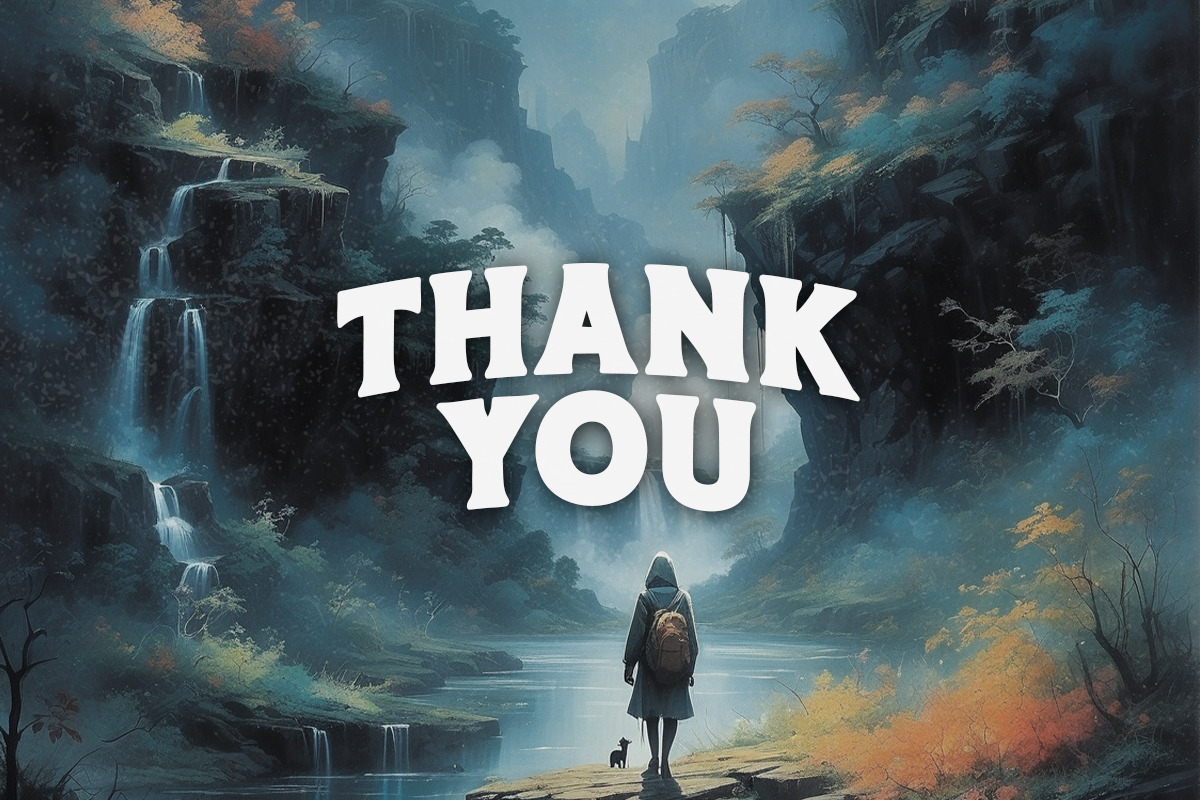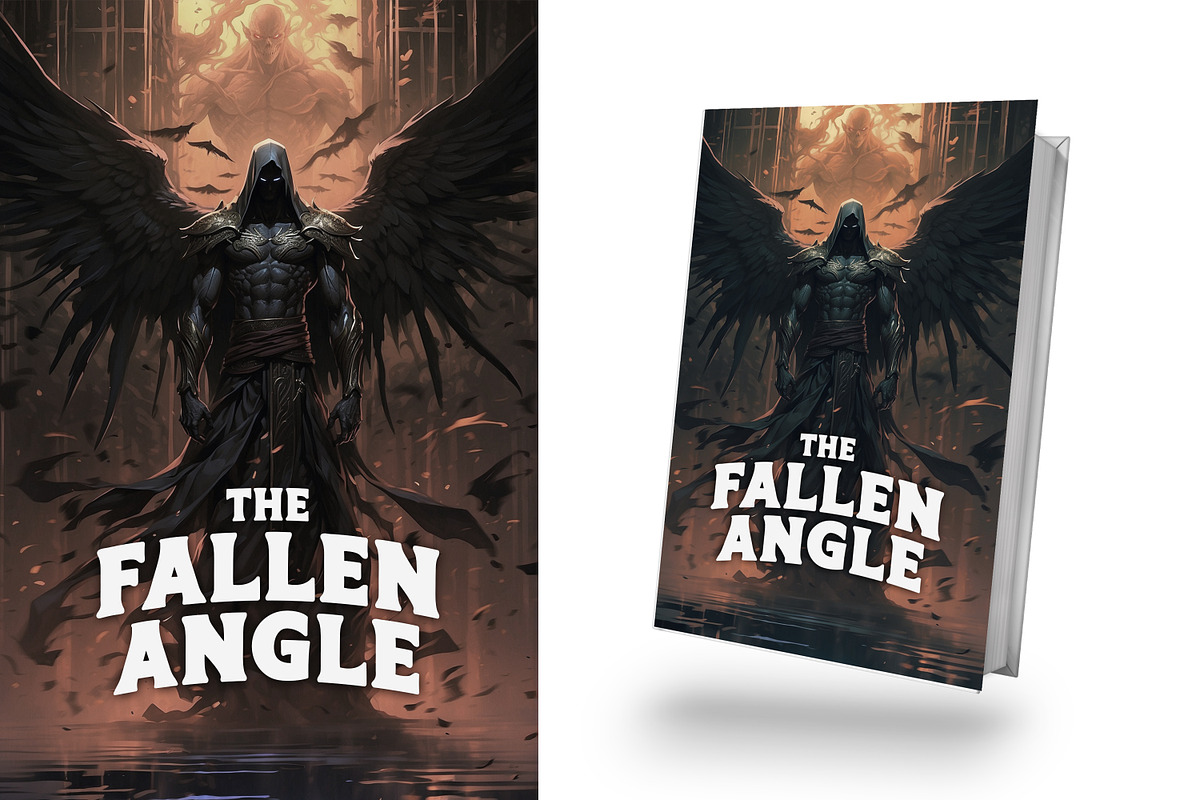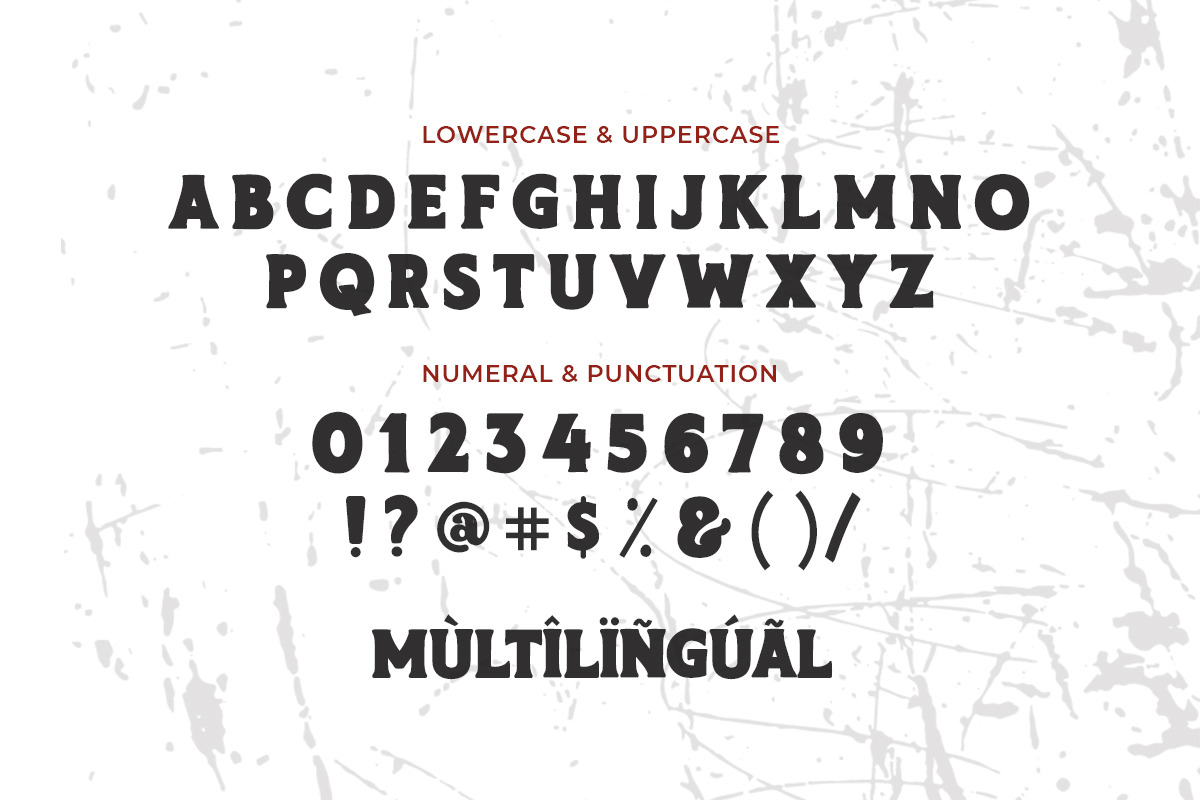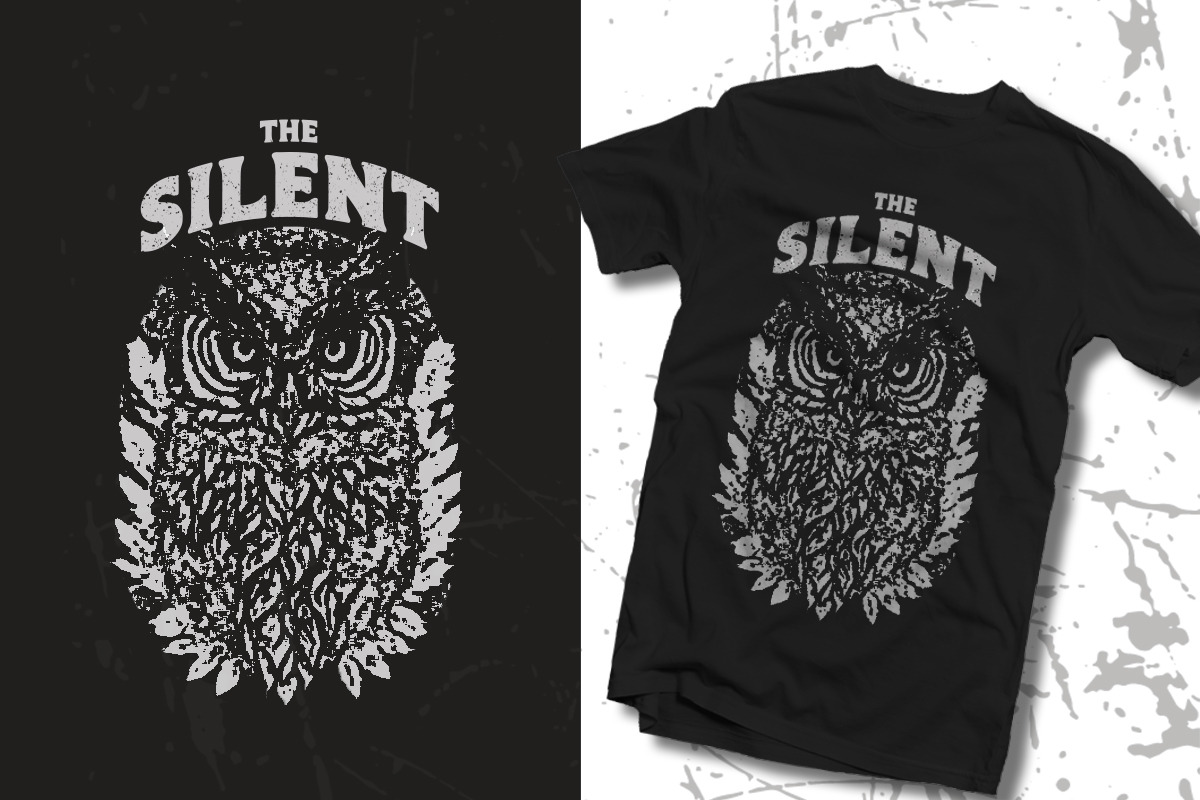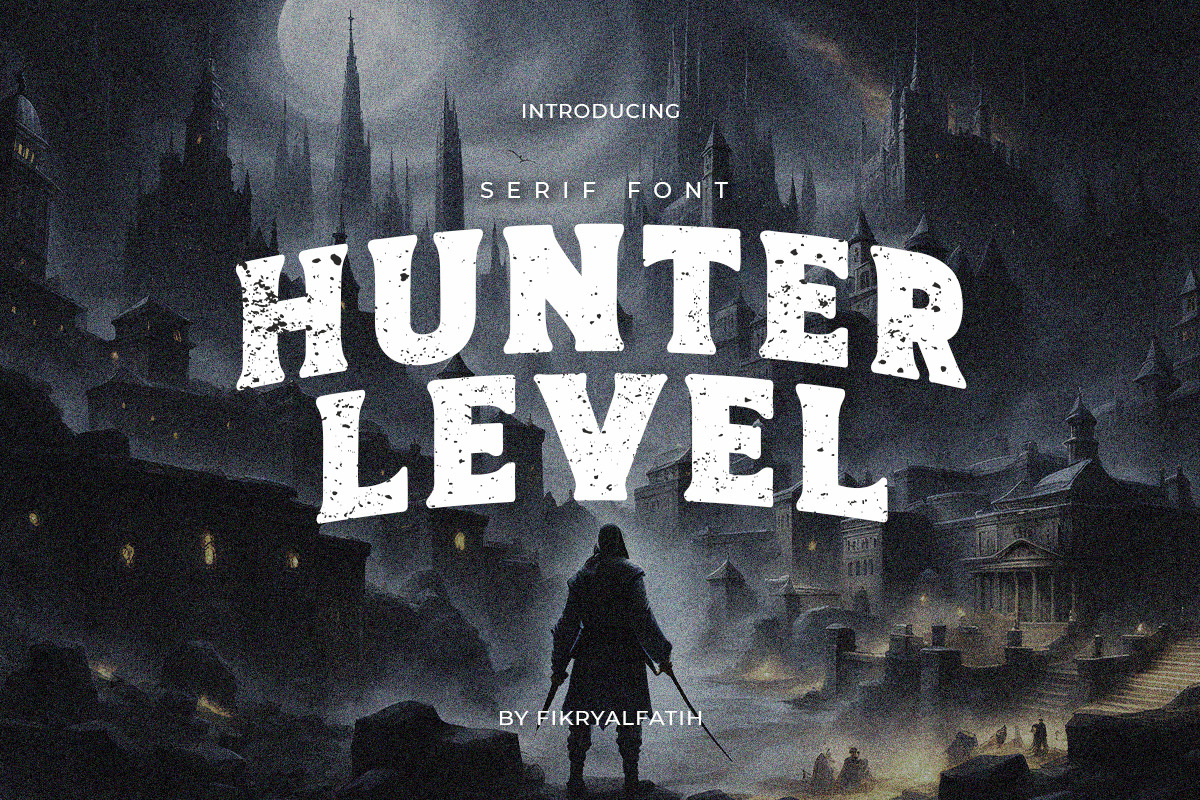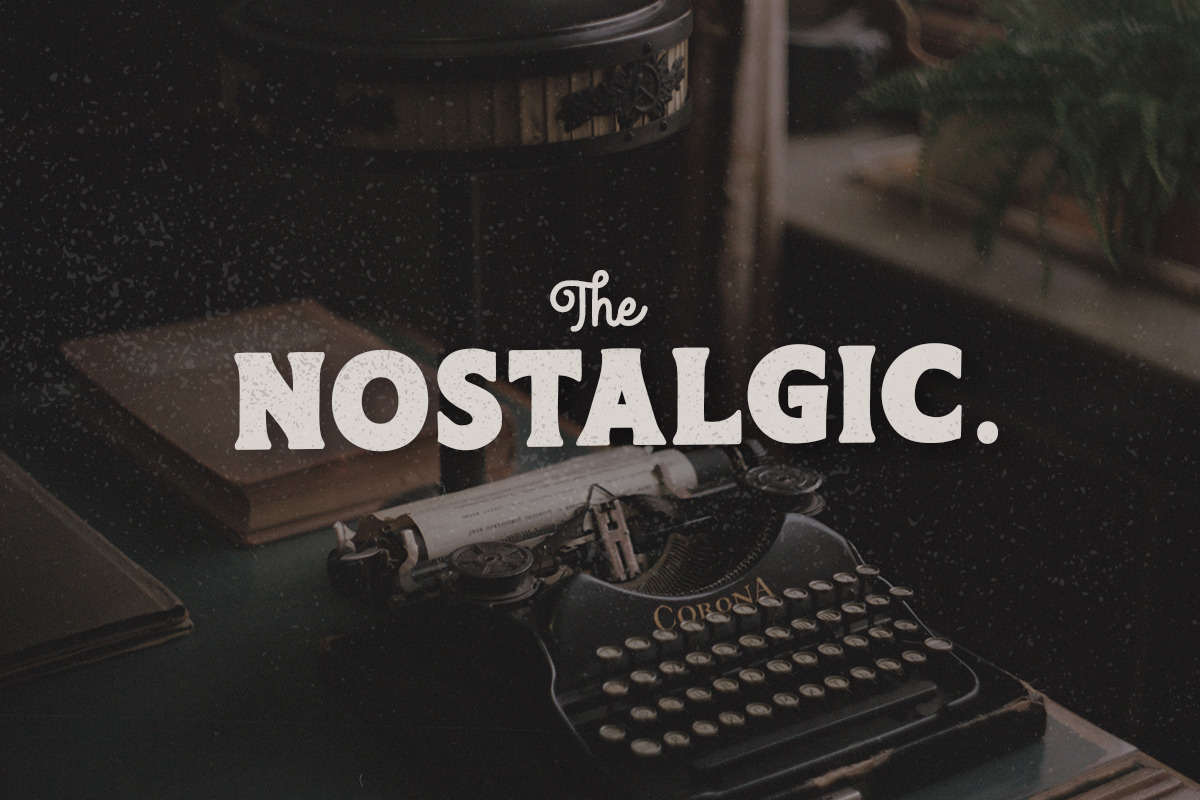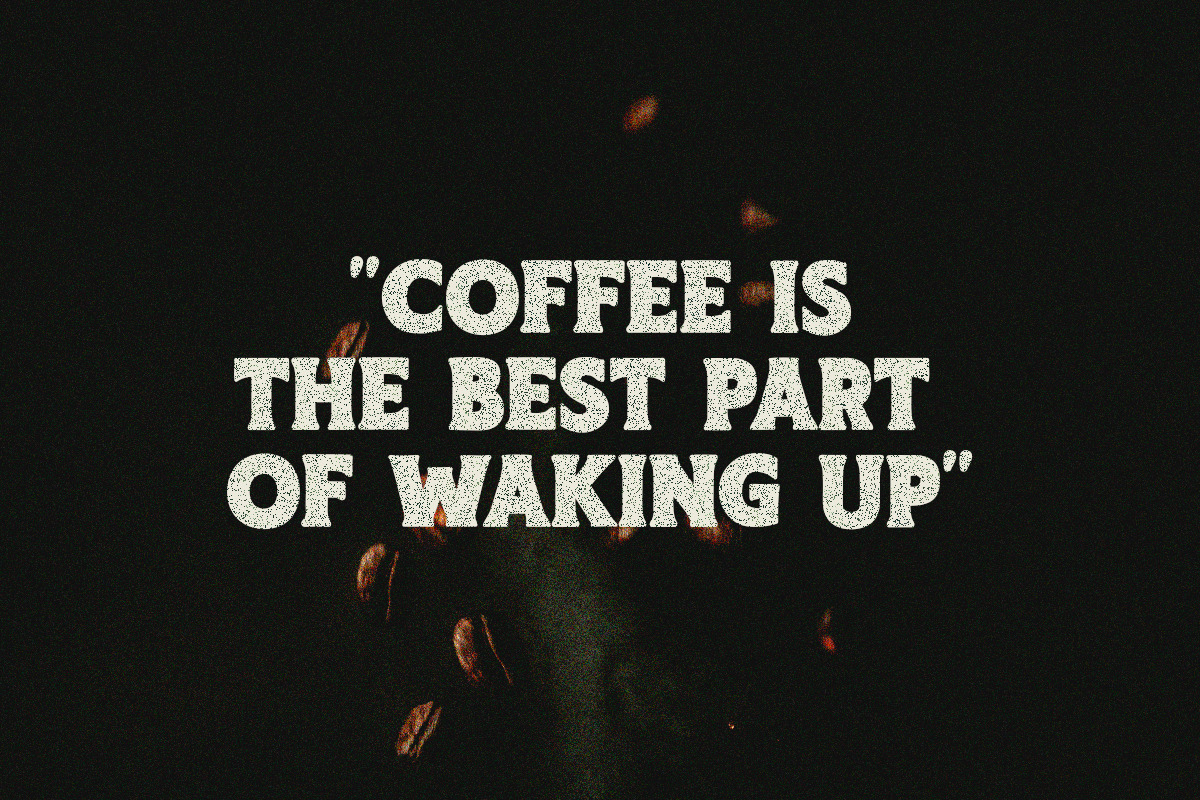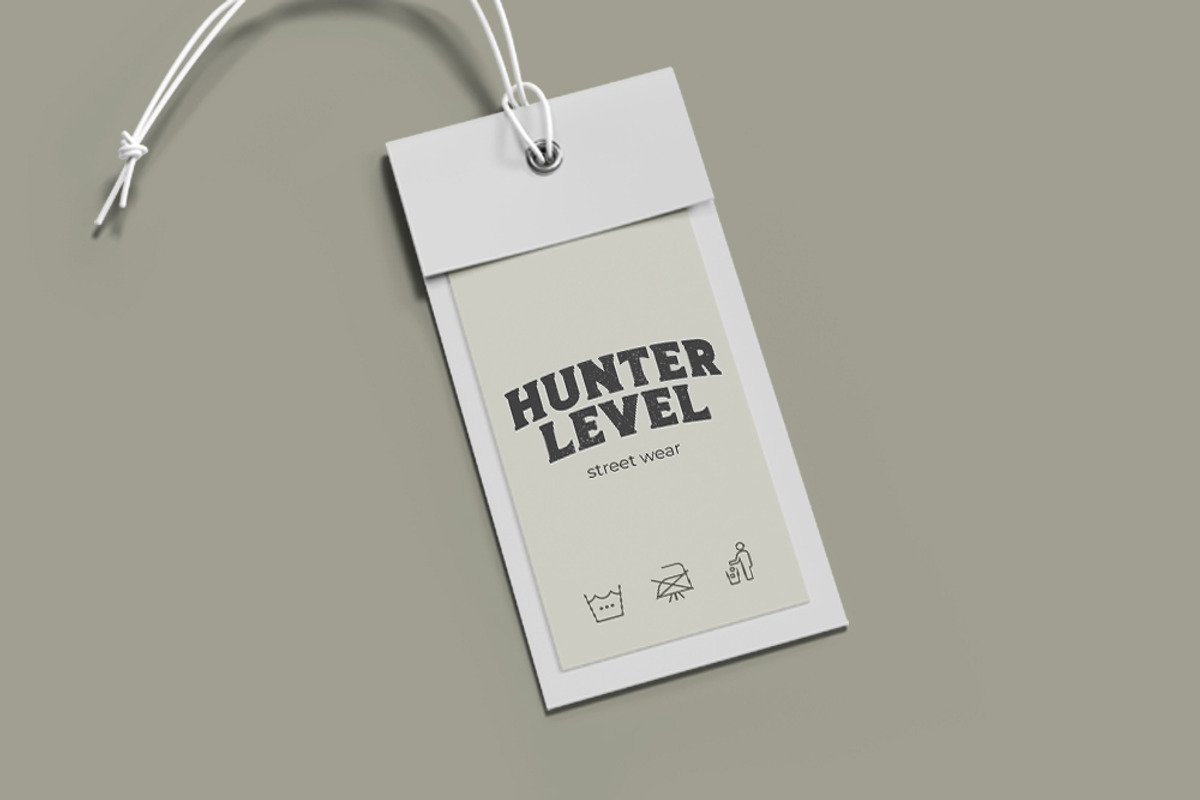
Hunter Level - Serif Vintage Font
Level Hunter is a Vintage Serif Font, inspired by vintage style typography. This font is perfect for designs making it more attractive. Made with an excellent aesthetic level, this font is suitable for game logos, t-shirts, book covers, posters, movies, and much more.
- Numbers and Punctuation